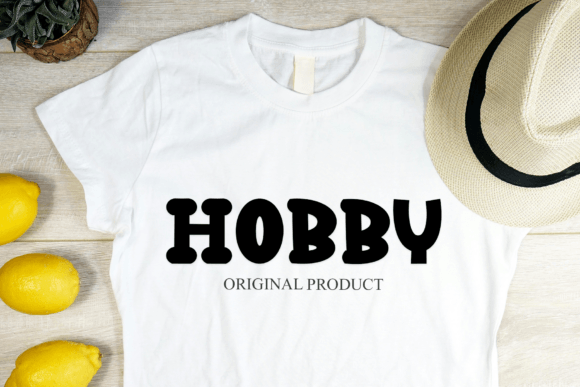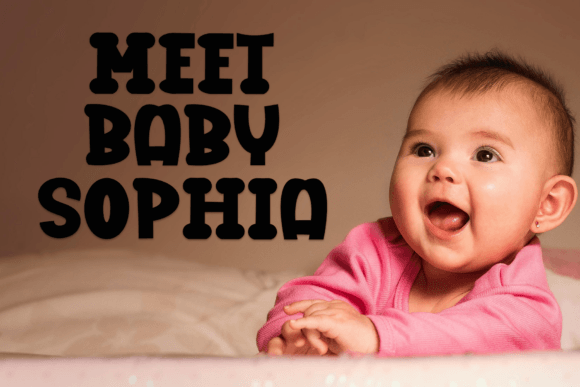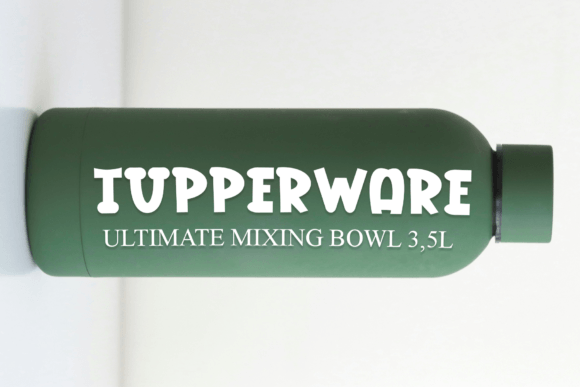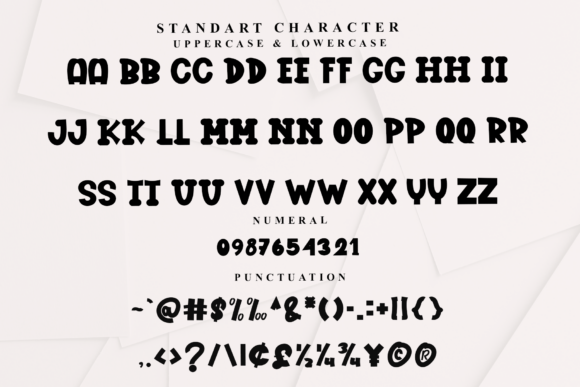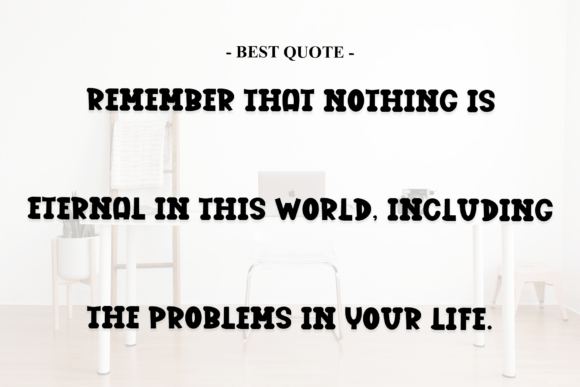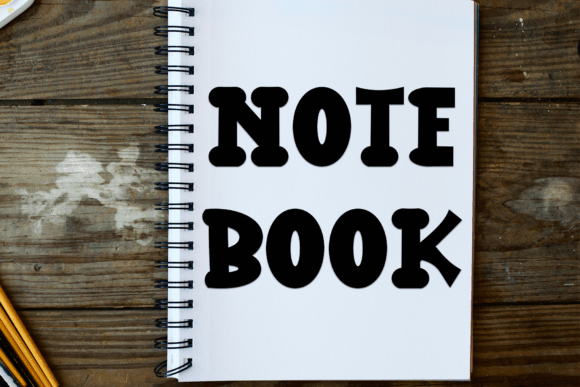
Introducing Anabel Font: The Sweet and Friendly Handwritten Font for Your Creative Projects
Are you a designer, crafter, or DIY enthusiast looking for a font that can add a personal touch to your projects? Look no further than Anabel Font, a sweet and friendly handwritten font that’s perfect for a wide range of designs. With its natural and unique style, Anabel Font is incredibly versatile and can be used in various creative projects, from digital designs to handmade crafts.
The Charm of Anabel Font
Anabel Font is a beautifully crafted handwritten font that’s designed to bring a sense of warmth and personality to your designs. Its natural and unique style makes it stand out from other fonts, and its friendly tone is sure to capture the hearts of your audience. Whether you’re creating a logo, a poster, a social media graphic, or a handmade craft, Anabel Font is the perfect choice.
What Makes Anabel Font So Versatile?
The versatility of Anabel Font lies in its simplicity and elegance. The font’s natural and handwritten style makes it suitable for a wide range of designs, from:
- Digital designs: social media graphics, blog posts, website headers, and more
- Print designs: posters, flyers, brochures, business cards, and more
- Handmade crafts: scrapbooking, card making, journaling, and more
The only limit to using Anabel Font is your imagination! You can use it to create a variety of designs, from simple and elegant to complex and ornate.
Benefits of Using Anabel Font
Using Anabel Font in your designs comes with several benefits, including:
- Unique and personalized designs: Anabel Font adds a personal touch to your designs, making them stand out from the crowd.
- Ease of use: The font is easy to read and works well in various sizes, making it perfect for digital and print designs.
- Flexibility: Anabel Font can be used in a variety of designs, from formal to informal, and can be paired with other fonts to create a unique look.
How to Use Anabel Font in Your Designs
Using Anabel Font in your designs is easy! Here are some tips to get you started:
- Pair it with other fonts: Anabel Font works well with other fonts, so don’t be afraid to experiment with different combinations.
- Experiment with colors: The font looks great in various colors, so try using different colors to add some personality to your designs.
- Use it in digital and print designs: Anabel Font is versatile, so feel free to use it in both digital and print designs.
Anabel Font is a sweet and friendly handwritten font that’s perfect for designers, crafters, and DIY enthusiasts. Its natural and unique style makes it incredibly versatile, and its friendly tone is sure to capture the hearts of your audience. With its ease of use, flexibility, and unique personality, Anabel Font is a great addition to any design project. So why not give it a try and see what amazing designs you can create?
In conclusion, Anabel Font is a must-have font for anyone looking to add a personal touch to their designs. Its versatility, ease of use, and unique personality make it the perfect choice for a wide range of designs. So don’t wait any longer, download Anabel Font today and start creating amazing designs that capture the hearts of your audience!